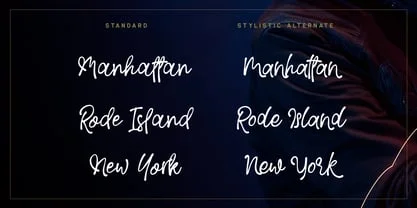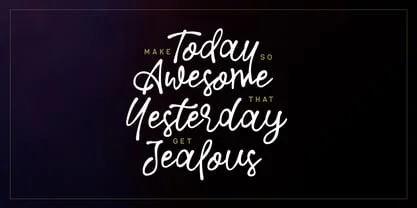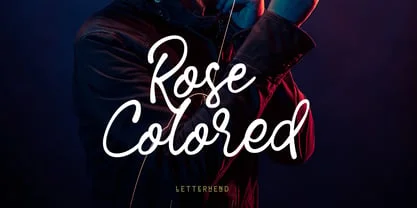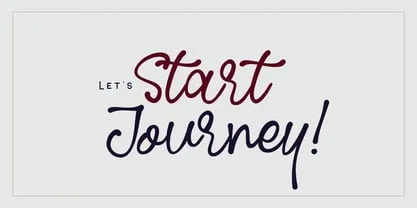
Rose Colored Font
A good typeface communicates tone before a single word is read. Rose Colored achieves this through refined proportions and careful stroke modulation. The typeface brings an elegant, calligraphic sensibility to a broad range of creative disciplines, with strong typographic hierarchy support that holds up whether the work is print-first or screen-first.
In practice, Rose Colored proves particularly effective for boutique logos, product labels, poster creation, event signage, advertising campaigns. Designers reaching for it find that the type decisions feel resolved rather than laboured — a useful quality when client timelines are tight.
The range of applications extends to environmental graphics, bridal materials, feminine branding, web design. That breadth is deliberate: the proportions and spacing were stress-tested across a wide range of mock briefs before the typeface was finalised.
At smaller sizes the design retains its character without becoming cluttered. This resilience across scales makes Rose Colored equally suitable for a business card and a billboard — a useful property when assets must scale across a campaign.
Freelance designers across print and digital disciplines find Rose Colored a reliable choice for projects that demand both personality and restraint. The design avoids the self-conscious quirkiness that dates quickly, settling instead for considered distinctiveness that holds up over time.